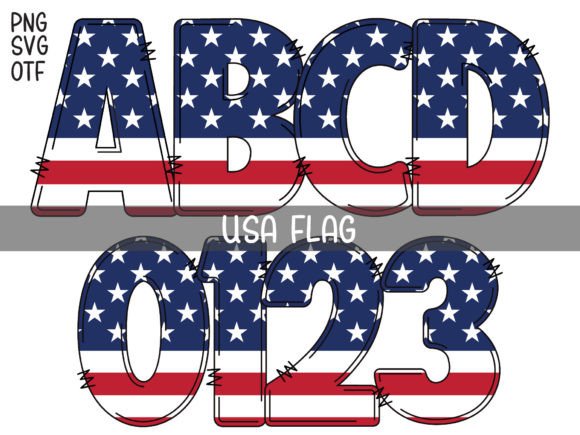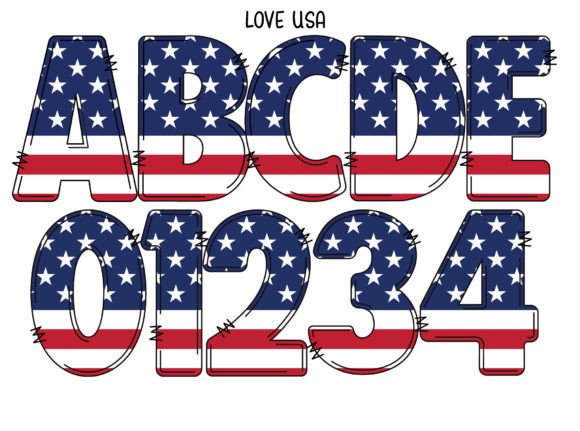
Love Usa Font
About the Love Usa Font
Meet Love Usa Font, a stunning font that brings a touch of elegance and professionalism to any design. Love USA is a cool and uniquely crafted patriotic color font. Its fun and playful characters make it the perfect font for stickers, mugs, t-shirts, ornaments, independence day event cards, event invitations, and many more!
Love USA’s playful character shines in projects requiring a bold, friendly aesthetic. It’s ideal for branding focused on American themes, especially those targeting a younger demographic. Excellent choices include logos, short headlines, and social media graphics. However, avoid using it for body text or lengthy content; its distinctive style is better suited for impactful visual statements than extended readability.
Consider pairing Love USA with a clean sans-serif like Open Sans for a balanced contrast, or a more geometric font such as Futura for a modern feel. For a slightly more vintage look, a simple serif like Playfair Display could provide elegant counterpoint. Avoid pairing it with overly decorative script fonts, which would clash with its playful but relatively straightforward design.
Its inherent energy makes it less suitable for projects demanding sophistication or minimalism. Use Love USA where a fun, patriotic vibe is desired and readability isn’t the primary concern.